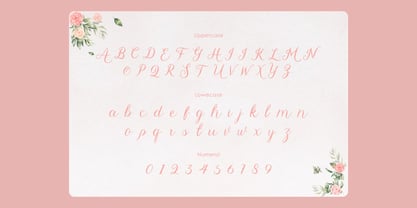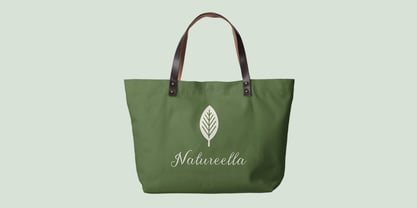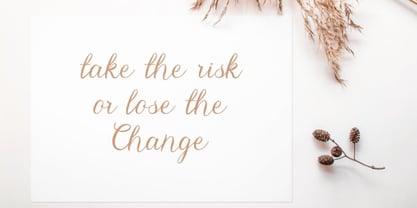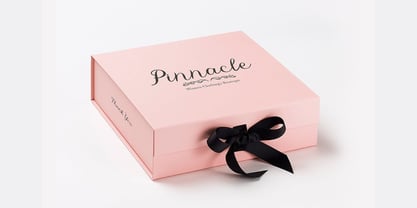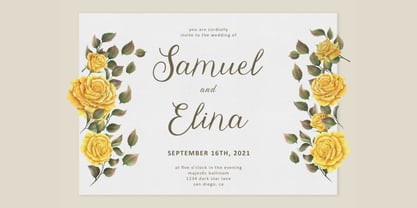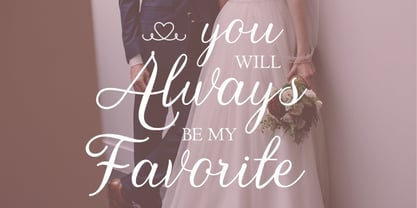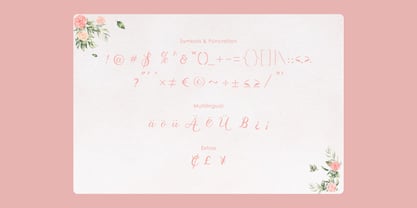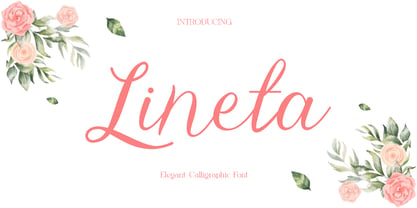
Lineta
by Only Fonts
The Lineta Font Family was designed by Olivia Love and published by Only Fonts. Lineta contains 1 styles. More about this family
Lineta is a graceful and enchanting calligraphic font, designed to add a touch of romance and timeless elegance to your creative projects. Drawing inspiration from natural handwriting and delicate floral aesthetics, Lineta features beautifully flowing curves and smooth, refined strokes that evoke warmth, femininity, and sophistication.​ Every character in Lineta is carefully crafted to create seamless harmony, making your text look effortlessly stylish and authentically handwritten. The font’s unique alternates and ligatures provide endless opportunities for creative expression, allowing you to customize each word with artistry and distinction. Lineta’s balanced forms and airy linework ensure outstanding legibility while retaining delicate detail perfect for designs that need to communicate both personality and polish.​ Lineta shines in a variety of applications, from branding and signature logos to wedding stationery, packaging, quotes, greeting cards, and social media graphics. Its multilingual support, complete symbol set, and versatile formats make it easy to use across print and digital platforms. If you’re looking for a calligraphy font that brings authentic elegance, warmth, and charm to your work, Lineta is the perfect choice to inspire lasting impressions.
Designers: Olivia Love
Foundry: Only Fonts